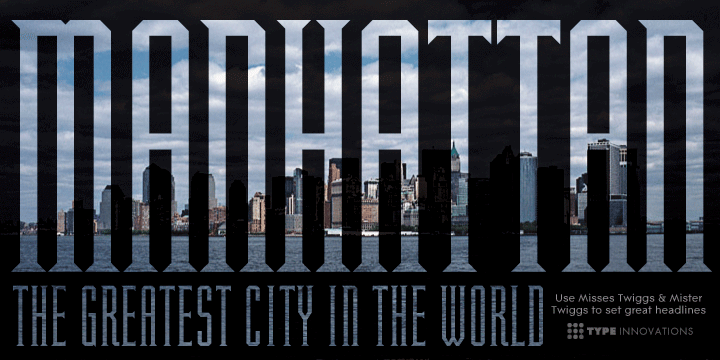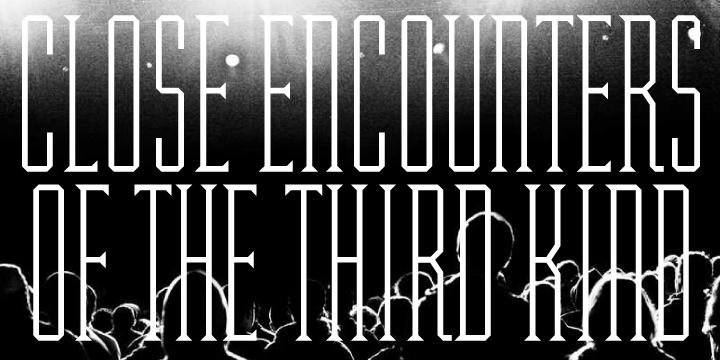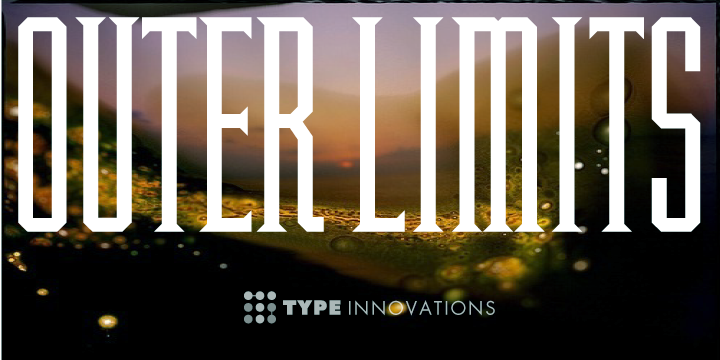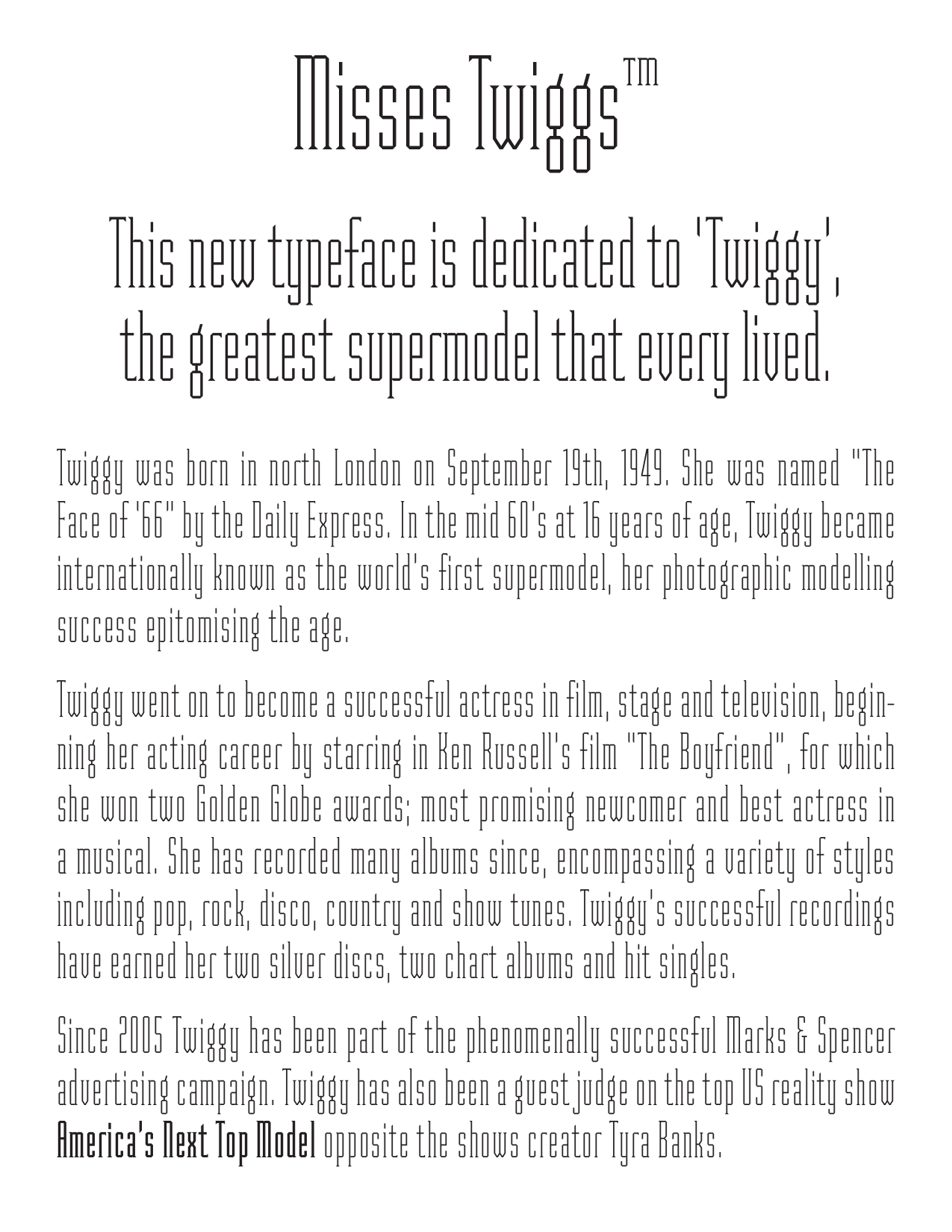
Misses Twiggs Collection
Misses Twiggs
Regular
Misses Twiggs Heavy
Regular
Misses Twiggs Thin
Regular
‘Misses Twiggs’ is a comtemporay modern serif created by the American type designer Alex Kaczun. It compliments its partner ‘Mister Twiggs’ and is a perfect marriage of two fonts. ‘Mister Twiggs brings his tall good looks and ‘Misses Twiggs’ bring her cute little serifs to the relationship.
There are absolutely no curves in these elegant typefaces. Both fonts have sharp corners with extra tall capitals and narrow waistlines. ‘Misses Twiggs’ also comes in 3 flavors: regular, thin and heavy.
Alex is in the process of adding a professional set to this series, including small caps, old style figures and numerous alternate character forms. In addition, there are plans to make yet additional styles that will be called ‘Miss Twiggs’, ‘Junior Twiggs’ and ‘Little Twiggs’. Hey, what can I say… thin is in.